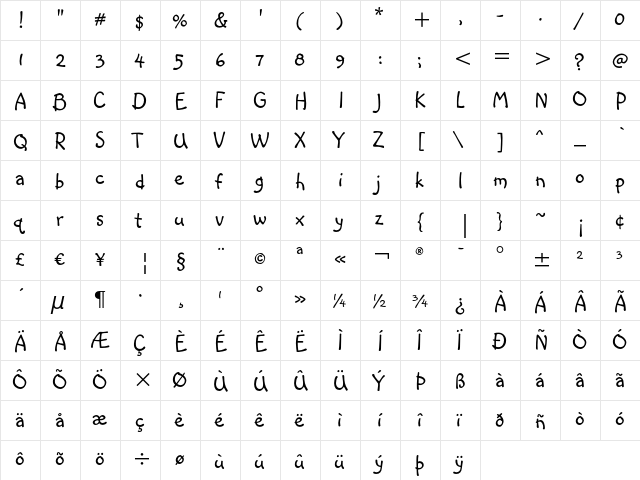
Missy BT Regular
Design Context for Missy BT Typeface
Missy BT takes a measured approach to typography — its balanced proportions and neutral character make it a reliable workhorse for both digital and print work.